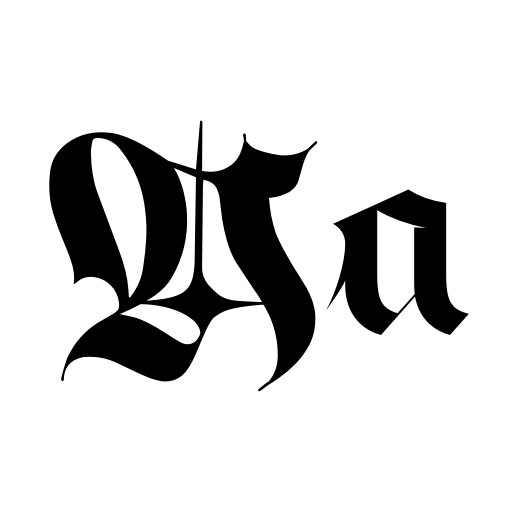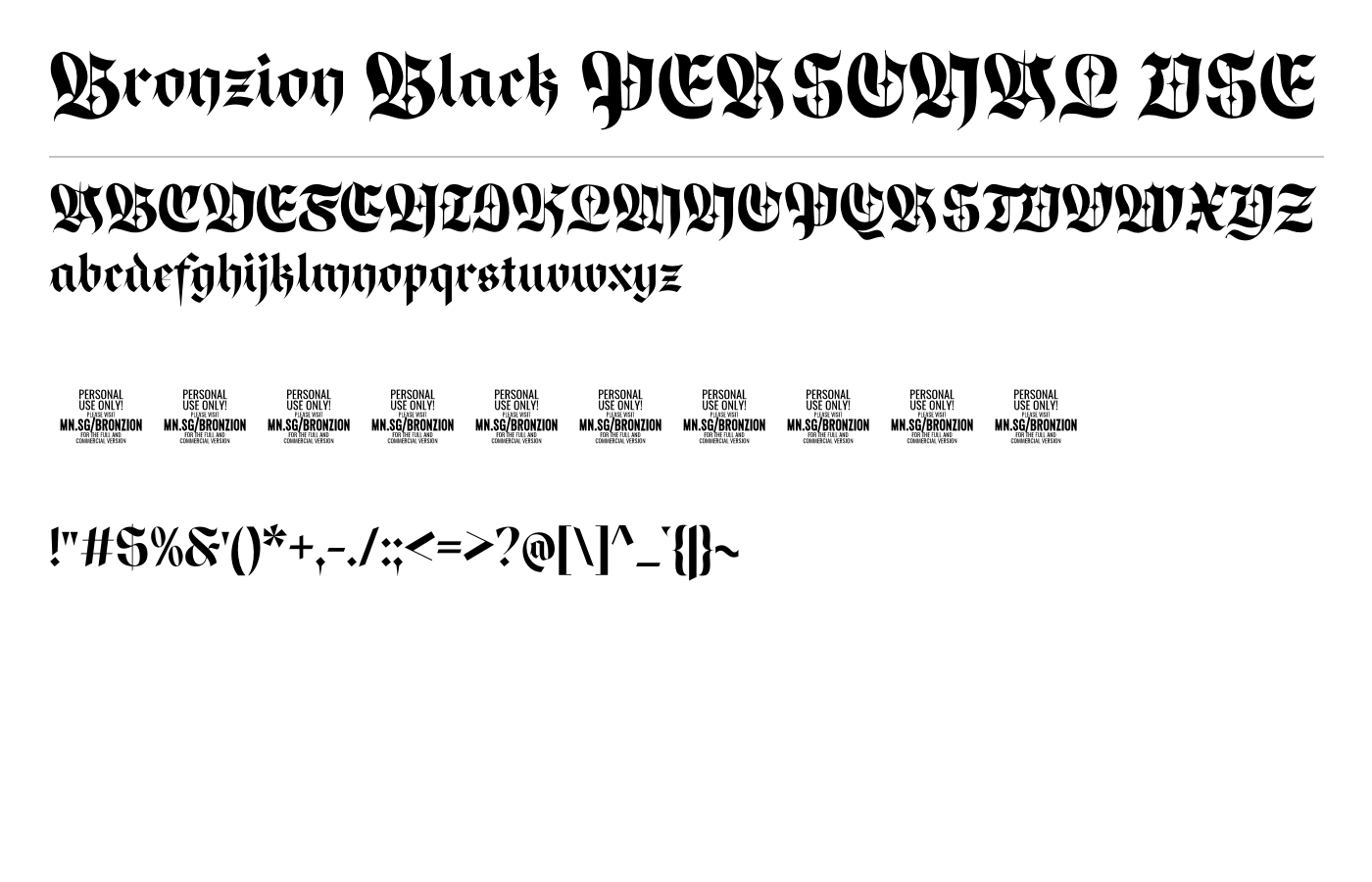
Bronzion Black is a bold blackletter font with strong, sharp strokes and high contrast between thick and thin lines, giving it a dramatic and traditional Gothic appearance. Its intricate uppercase and lowercase letterforms evoke a vintage, medieval style that fits perfectly with classic or edgy branding, tattoos, and headlines that need a striking, historical flair. This font works best in large sizes for logos, posters, and editorial designs where its detailed character shapes can truly stand out.
Bronzion Black PERSONAL USE Font
About Bronzion Black PERSONAL USE Font